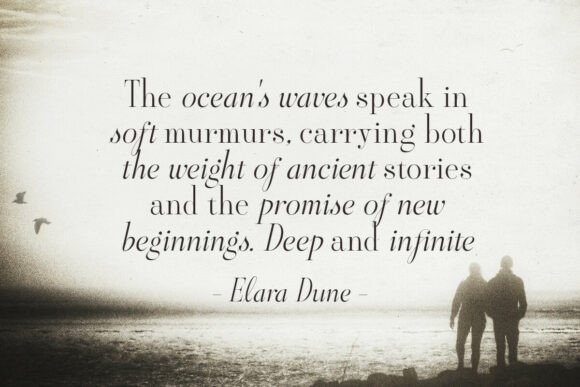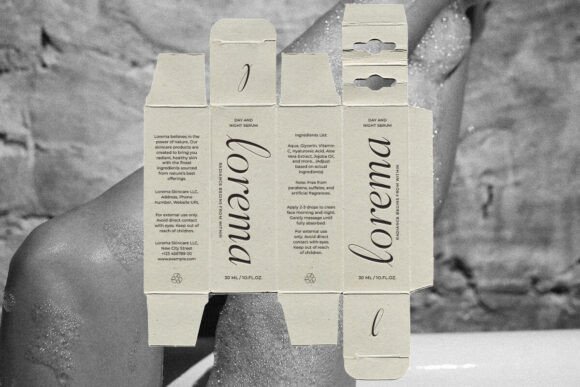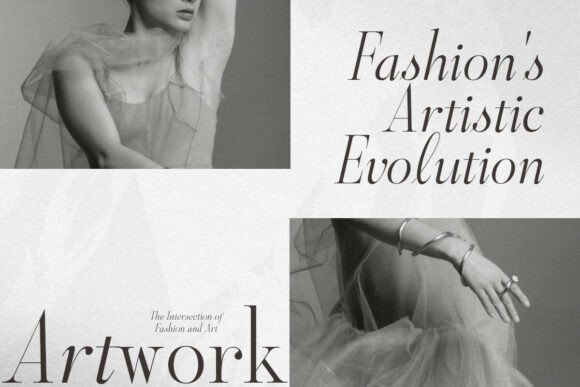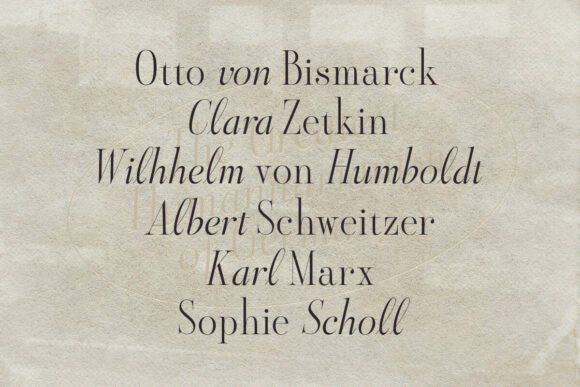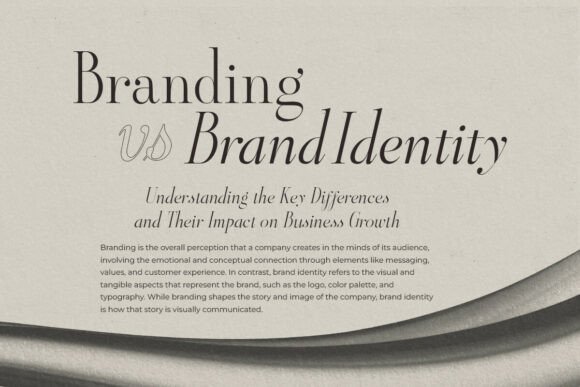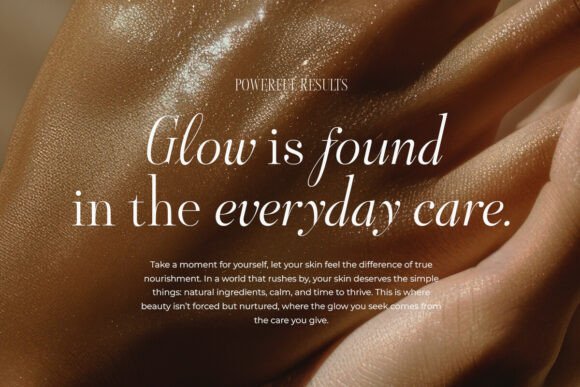
Aesthetic Styles Regular Font: Elevate Your Designs with Elegance and Sophistication
In the world of typography, few fonts manage to convey a sense of luxury, sophistication, and modernity as effectively as Aesthetic Styles Regular Font. This tall, refined serif font is designed to make a statement, with its slender and elongated letterforms exuding a sense of poise and elegance. Whether you’re a designer, craftsperson, or simply someone who appreciates beautiful typography, Aesthetic Styles is sure to captivate your audience and elevate your designs to new heights.
The Characteristics of Aesthetic Styles
So, what sets Aesthetic Styles apart from other fonts? For starters, its high-contrast strokes and elegant curves create a sense of fluidity and softness, making it perfect for designs that require a touch of sophistication. The font’s italic variants add an extra layer of elegance, while its distinctive elements – such as long, sweeping terminals and stylish ligatures – give it a fashion-forward and editorial feel.
One of the standout features of Aesthetic Styles is its ability to convey a sense of femininity and quiet confidence. This makes it an excellent choice for luxury branding, beauty packaging, and magazine layouts, where a touch of elegance and sophistication can make all the difference. The font’s timeless elegance also ensures that it will remain a popular choice for years to come, making it a valuable addition to any designer’s toolkit.
Uses for Aesthetic Styles Regular Font
So, how can you use Aesthetic Styles Regular Font to elevate your designs? Here are just a few ideas to get you started:
• Luxury Branding: Use Aesthetic Styles to create a luxurious and sophisticated brand identity that exudes elegance and refinement.
• Beauty Packaging: Add a touch of glamour to your beauty packaging with Aesthetic Styles, perfect for high-end skincare, makeup, or fragrance brands.
• Magazine Layouts: Use Aesthetic Styles to create stunning magazine layouts that are both elegant and easy to read.
• Minimalist Design Concepts: Pair Aesthetic Styles with simple, clean design elements to create a striking and sophisticated visual identity.
• Logos: Use Aesthetic Styles to create a beautiful and elegant logo that reflects your brand’s values and personality.
Why Choose Aesthetic Styles?
With so many fonts to choose from, why should you choose Aesthetic Styles? Here are just a few reasons:
• Timeless Elegance: Aesthetic Styles has a timeless elegance that ensures it will remain a popular choice for years to come.
• Versatility: Use Aesthetic Styles for a wide range of design projects, from luxury branding to magazine layouts.
• Sophistication: Aesthetic Styles exudes sophistication and refinement, making it perfect for designs that require a touch of elegance.
• Fashion-Forward: The font’s distinctive elements, such as long, sweeping terminals and stylish ligatures, give it a fashion-forward and editorial feel.
In conclusion, Aesthetic Styles Regular Font is a versatile and elegant serif font that is sure to elevate your designs to new heights. With its timeless elegance, sophisticated characteristics, and fashion-forward feel, it’s the perfect choice for designers and craftspersons who want to create stunning visual identities. Whether you’re working on a luxury branding project, beauty packaging, or simply want to add a touch of elegance to your designs, Aesthetic Styles is an excellent choice.